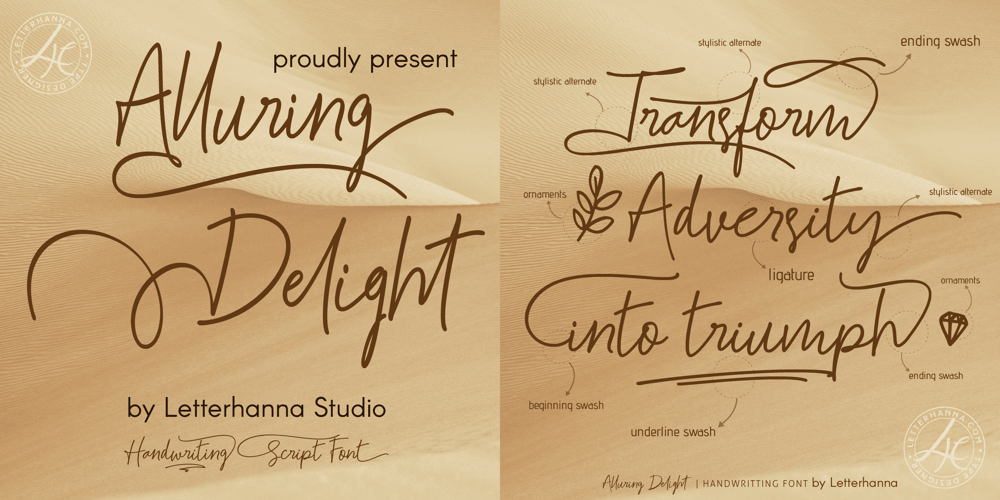
Alluring Delight Font Family was designed by Rinaldo Hasibuan and published by Letterhanna Studio. Alluring Delight contains 1 styles and family package options. Introducing “Alluring Delight” – a captivating handwritten font that effortlessly blends grace with whimsy. Its organic, flowing script and charming imperfections make it perfect for invitations, branding, and more. Dive into the world of elegance and allure with this exquisite typeface.